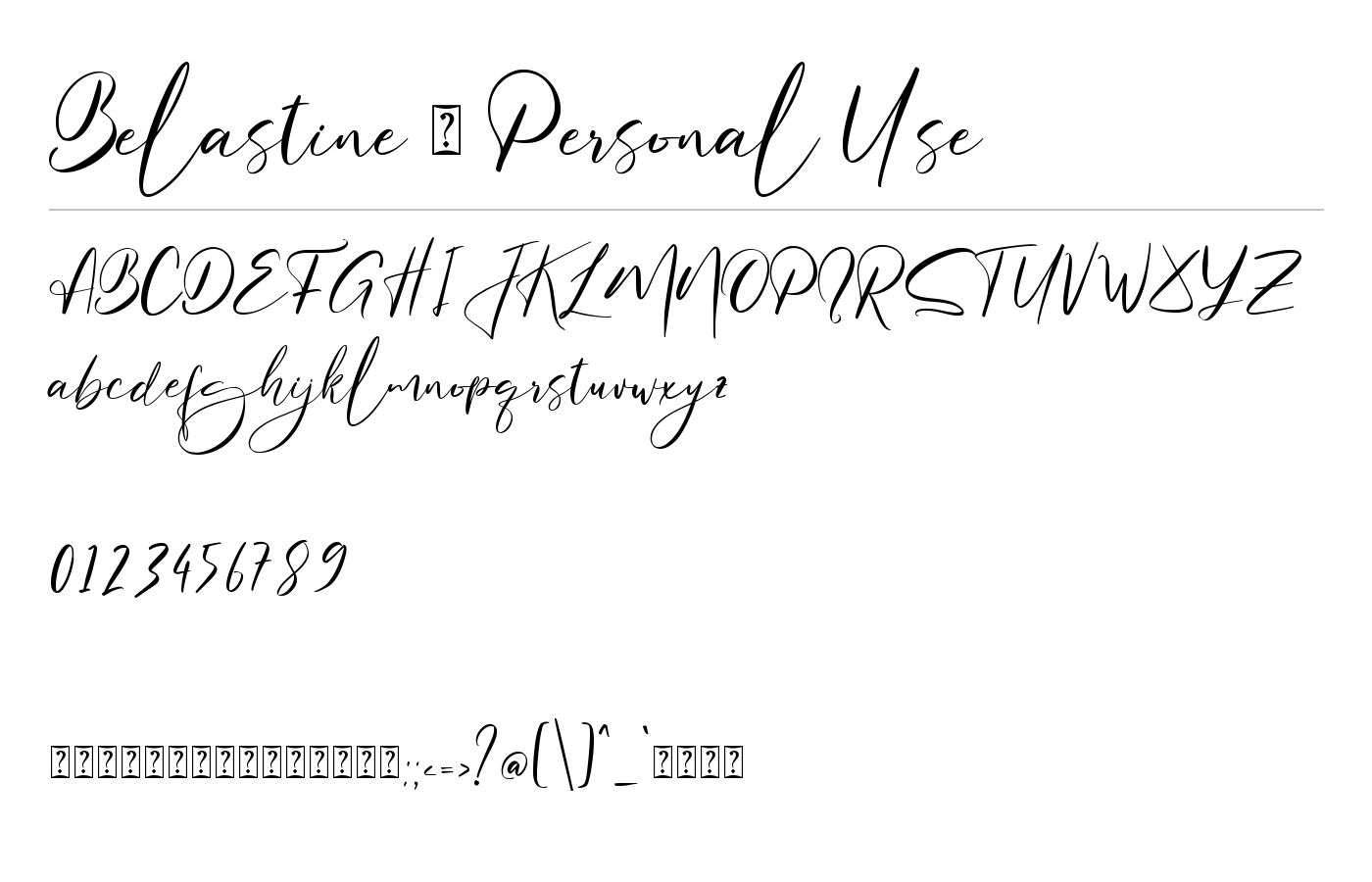
Belastine is an elegant, handwritten script font characterized by its flowing, delicate strokes and natural, calligraphic style. It features a graceful mix of thick and thin lines with creative, unique letterforms that evoke a personal and artistic feel, making it ideal for invitations, branding, and feminine or creative projects. This font works best in decorative headings and logos where a sophisticated, expressive touch is desired.
Belastine Font
About Belastine Font
| Designer | Aldedesign x Nox Studio 2021 |